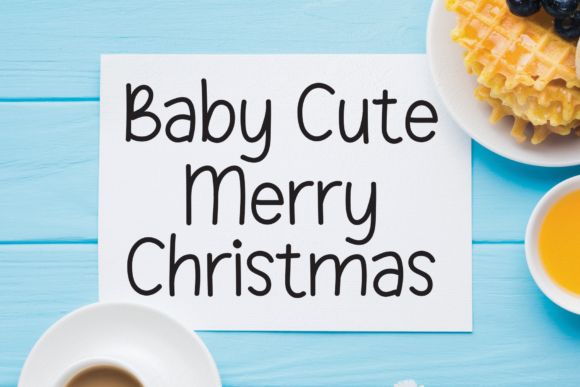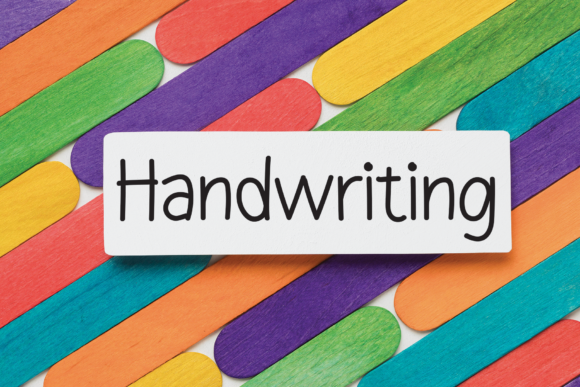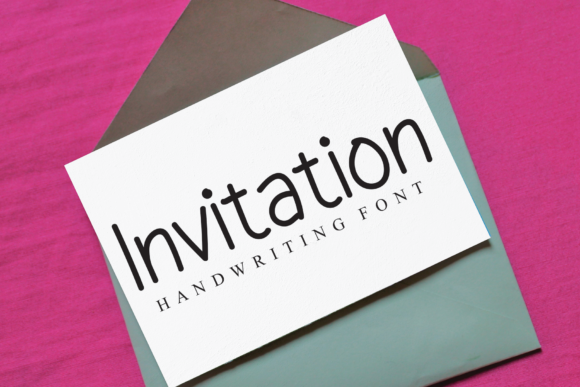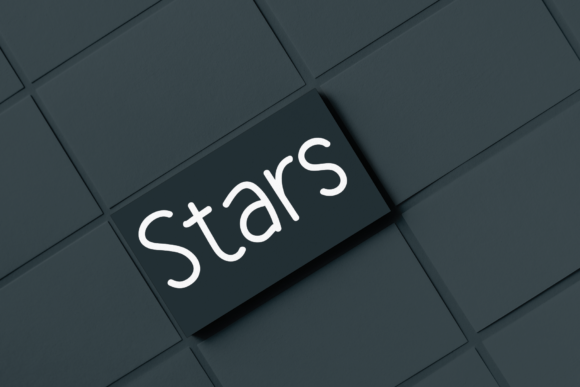
About Christmas Internets Font
Christmas Internets is a simple and neat handwritten font. Incredibly versatile, this font fits a wide pool of designs, elevating them to the highest levels. Add this font to your favorite creative ideas and notice how it makes them come alive!